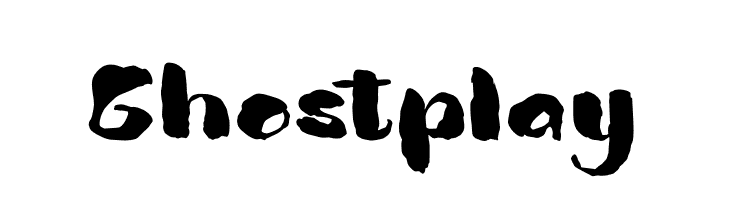
A bold, modern font with dynamic lines and rounded edges.
A bold, pixelated font with a retro, 8-bit video game aesthetic.
An elegant, flowing script font with whimsical loops and swirls.
A geometric and angular font with a modern, edgy style.
A futuristic, geometric font with a 3D, outlined design.
A bold, modern font with a geometric and impactful design.
A bold, playful handwritten font with a casual and friendly style.
An elegant and flowing script font with graceful swashes and artistic letterforms.
A modern, elongated font with a bold and sophisticated style.
A bold, playful handwritten font with rounded edges and a friendly style.